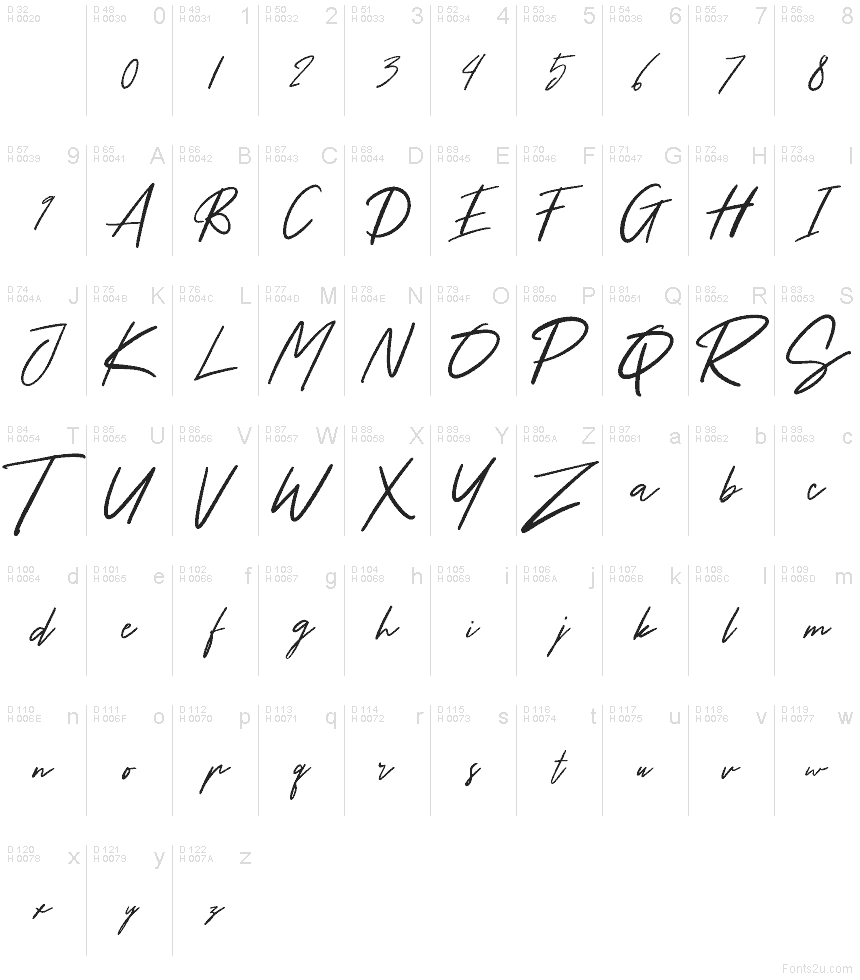
Jangthai
Jangthai font by Mergotype is a free monoline handwritten script font. Built with clean, even strokes and a gentle rightward slant, it solves the “signature-but-legible” dilemma. The lines feel inky and confident without messy blobs or jitter; letters link smoothly, with airy spacing that keeps words breathable at medium sizes. It reads like a quick, stylish autograph—casual, but not careless.
Using Jangthai, you can nail brand signatures, boutique logos, thank-you cards, product labels, packaging accents, social posts, and invitation headings. Its steady rhythm makes short phrases pop without shouting. This free font shines on white space; keep tracking tight and pair with a neutral, geometric sans-serif for body copy to let the script do the charming.